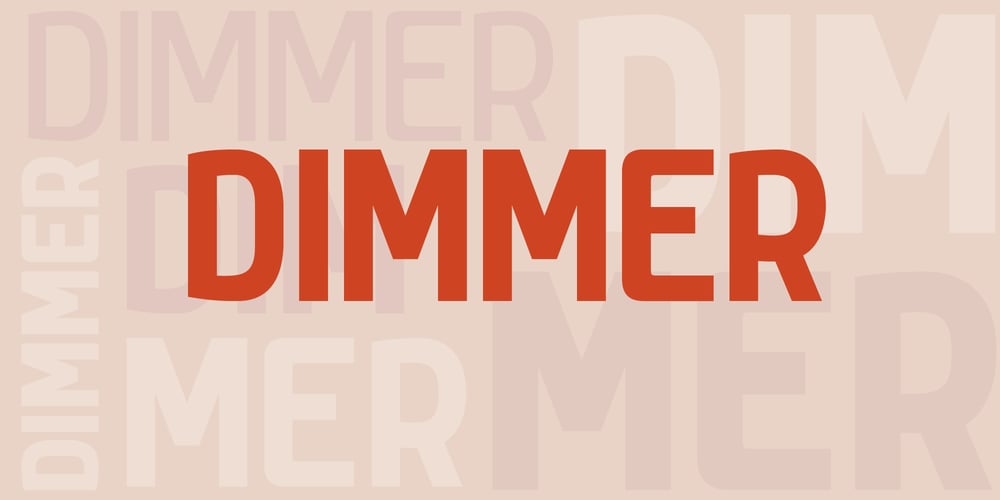
Dimmer Font Family was designed by Volodymyr Berla and published by VladB. Dimmer contains 4 styles and family package options. Dimmer is a modern narrow geometric sans serif font, includes upper and lower case characters, Latin, Cyrillic, Latin Eastern Europe, Turkish, Baltic and other, 500+ symbols.Dimmer family consists of 4 types of thickness.Dimmerfonts will be useful in developing a brand, creating posters and other graphic products, and for word processing.